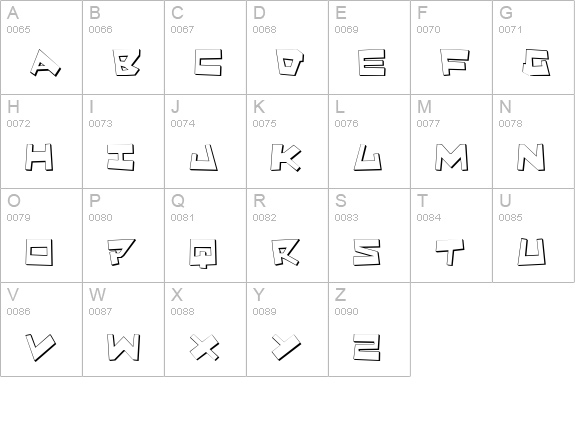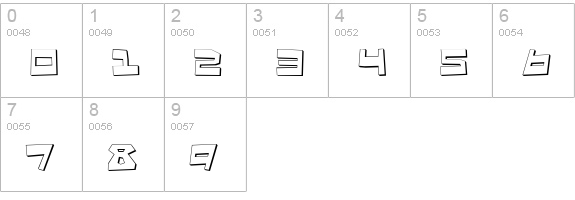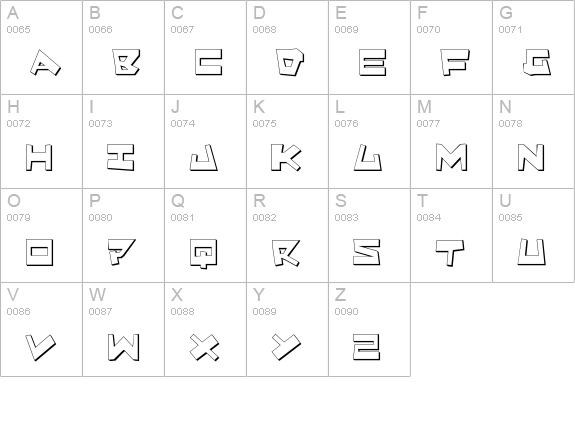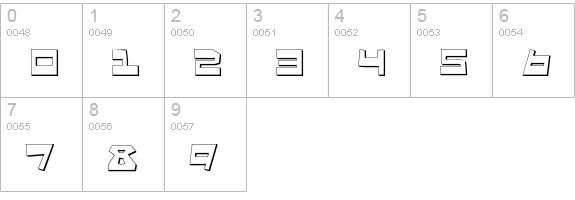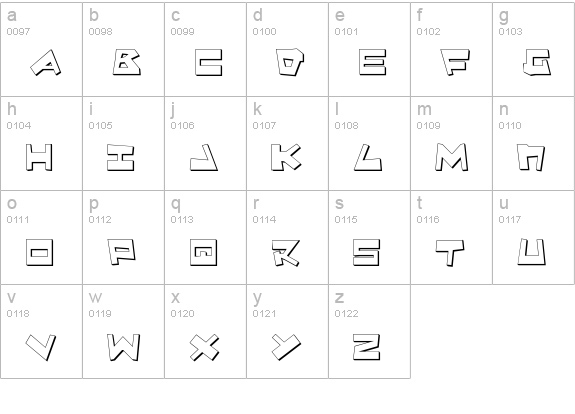
Quake & Shake 3D Font Details
Quake & Shake 3D font is a mesmerizing and dynamic typeface that will make your designs come alive with its three-dimensional effects. It is the perfect choice for those seeking to add a touch of excitement and energy to their projects. This font features a unique combination of strong geometric shapes and bold lines, creating a sense of movement and intensity. Each letter appears as if it is shaking and trembling, giving it an edgy and thrilling look. The Quake & Shake 3D font is incredibly versatile and can be used in a variety of design applications. Whether you are creating eye-catching logos, attention-grabbing headlines, or captivating posters, this font will undoubtedly leave a lasting impression on your audience. What makes this font even more remarkable is that it is available for free download at FontsMarket.com. Yes, you read that right – you can get your hands on this stunning font without spending a penny. FontsMarket.com is a trusted source for high-quality fonts, and they generously offer the Quake & Shake 3D font for free, allowing designers of all levels to access this remarkable typeface. So, if you are looking to add a touch of excitement and energy to your designs, look no further than the Quake & Shake 3D font. Download it for free at FontsMarket.com and watch your creations shake and quake with style and impact.